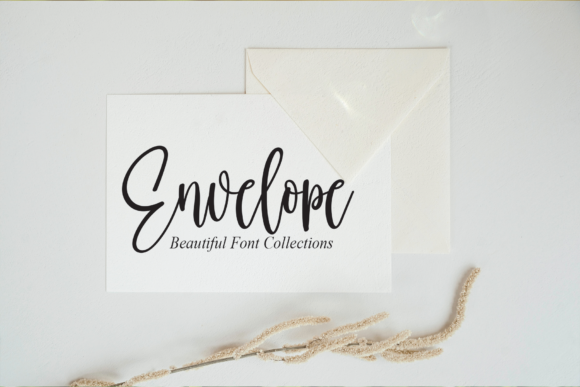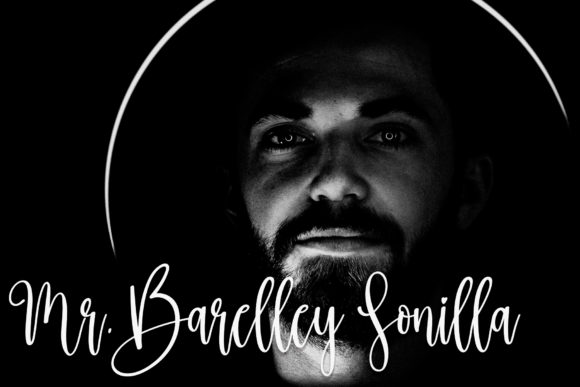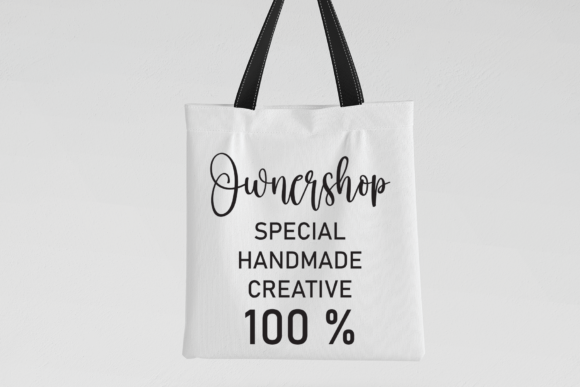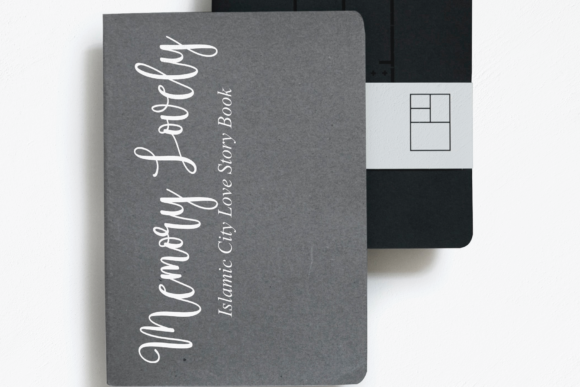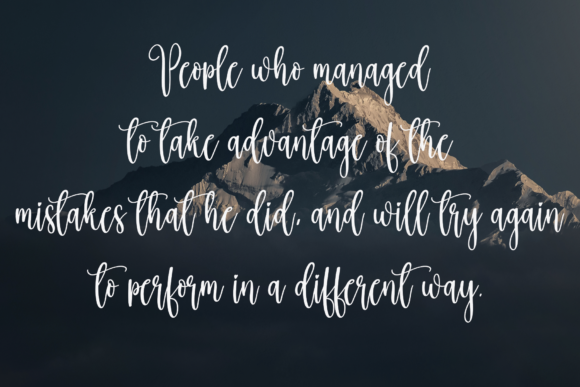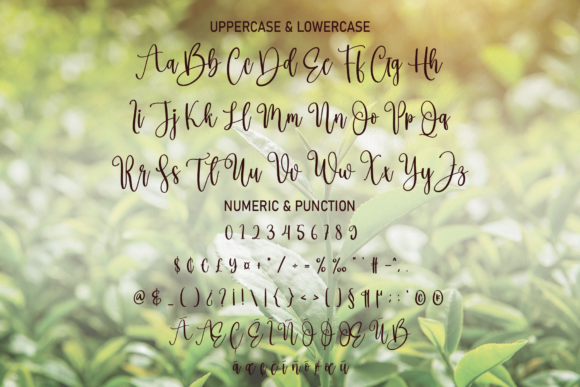
The Quest for the Perfect Font: Discovering Freshtea
I still remember the design project that led me to discover Freshtea Font. I was working on a branding project for a trendy tea shop, and I was struggling to find the perfect script font that would capture the essence of their brand. The client wanted something delicate, fashionable, and Instagram-worthy. I spent hours scouring the internet, trying out different fonts, but none seemed to fit the bill. That was until I stumbled upon Freshtea Font.
A Delicate and Fashionable Script Font
Freshtea is a beautiful script font that is perfect for any branding project. Its delicate and fashionable design makes it ideal for logos, t-shirt printing, creative products, and more. The font’s elegant lines and curves will look extraordinary in a variety of contexts, from digital media to print materials.
Honest Review: What I Love and What I Don’t
The Good ✨
- 💕 Delicate and elegant design
- ✅ Highly legible
- 🎨 Versatile and can be used in various contexts
- 💫 Supports OpenType features, glyphs, and stylistic alternates
The Not-So-Good 🤔
- ⚠️ Limited character set (no Cyrillic or non-English characters)
- 🤔 May not be suitable for body text or long paragraphs
The Story Behind Freshtea Font
Freshtea Font was designed by a team of creatives who wanted to create a beautiful, elegant script font that would capture the essence of freshness and style. Inspired by the delicate lines of tea leaves and the flowing curves of fashion typography, Freshtea Font was born. Today, it’s a popular choice among designers, crafters, and creative hobbyists.
Q: What is Freshtea Font?
A: Freshtea Font is a delicate and fashionable script font perfect for branding projects, logos, t-shirt printing, and more.
Q: What languages does Freshtea Font support?
A: Freshtea Font supports English and other languages that use the Latin alphabet.